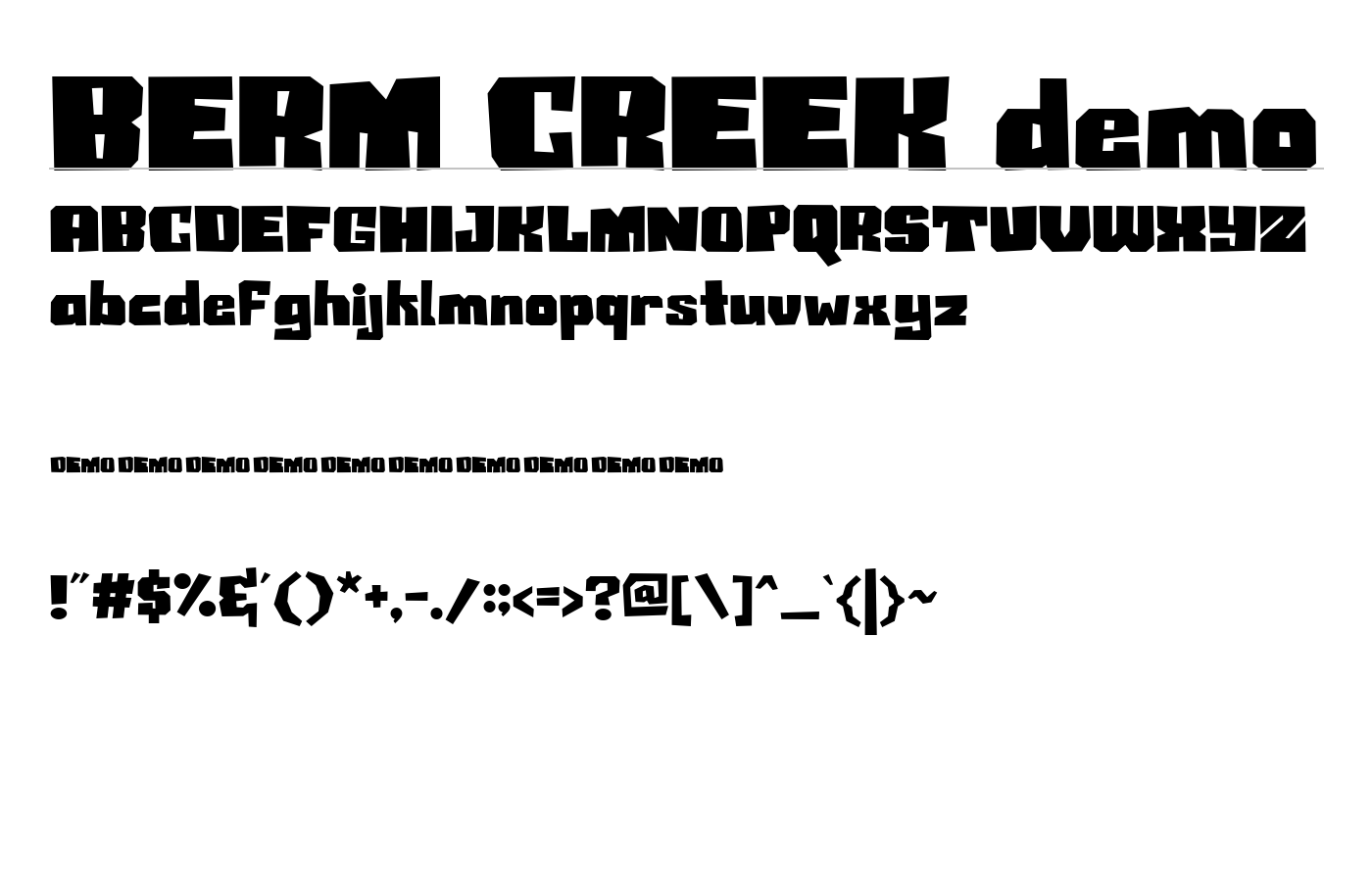
BERM CREEK demo is a bold, blocky sans serif font with a playful and slightly rugged character. Its irregular, chunky letterforms with uneven strokes give it a casual, hand-crafted feel, making it ideal for eye-catching headlines, posters, and creative branding that wants to convey energy and originality. This font works well where a strong, informal style is needed to grab attention and express personality.
BERM CREEK demo Font
About BERM CREEK demo Font